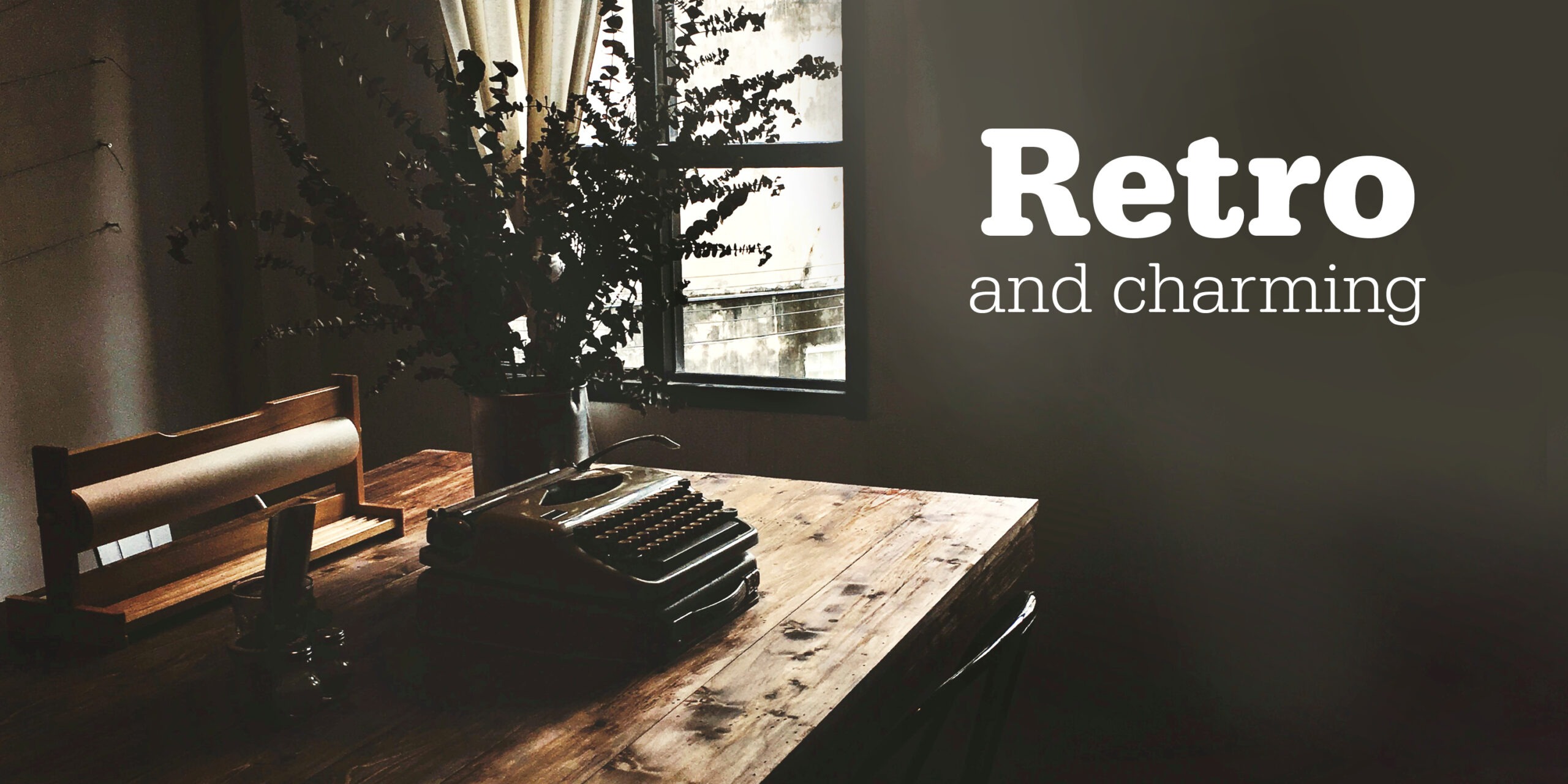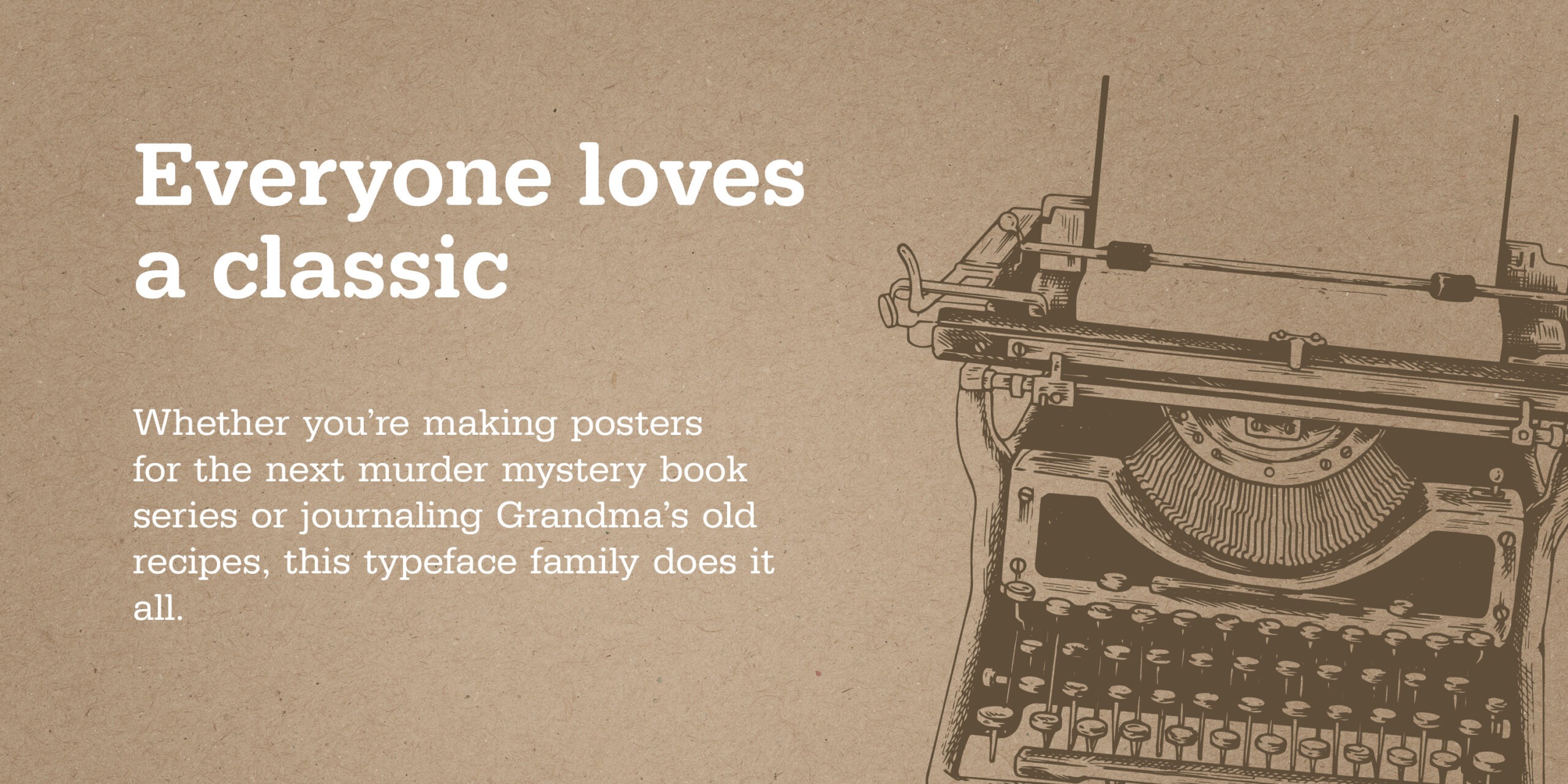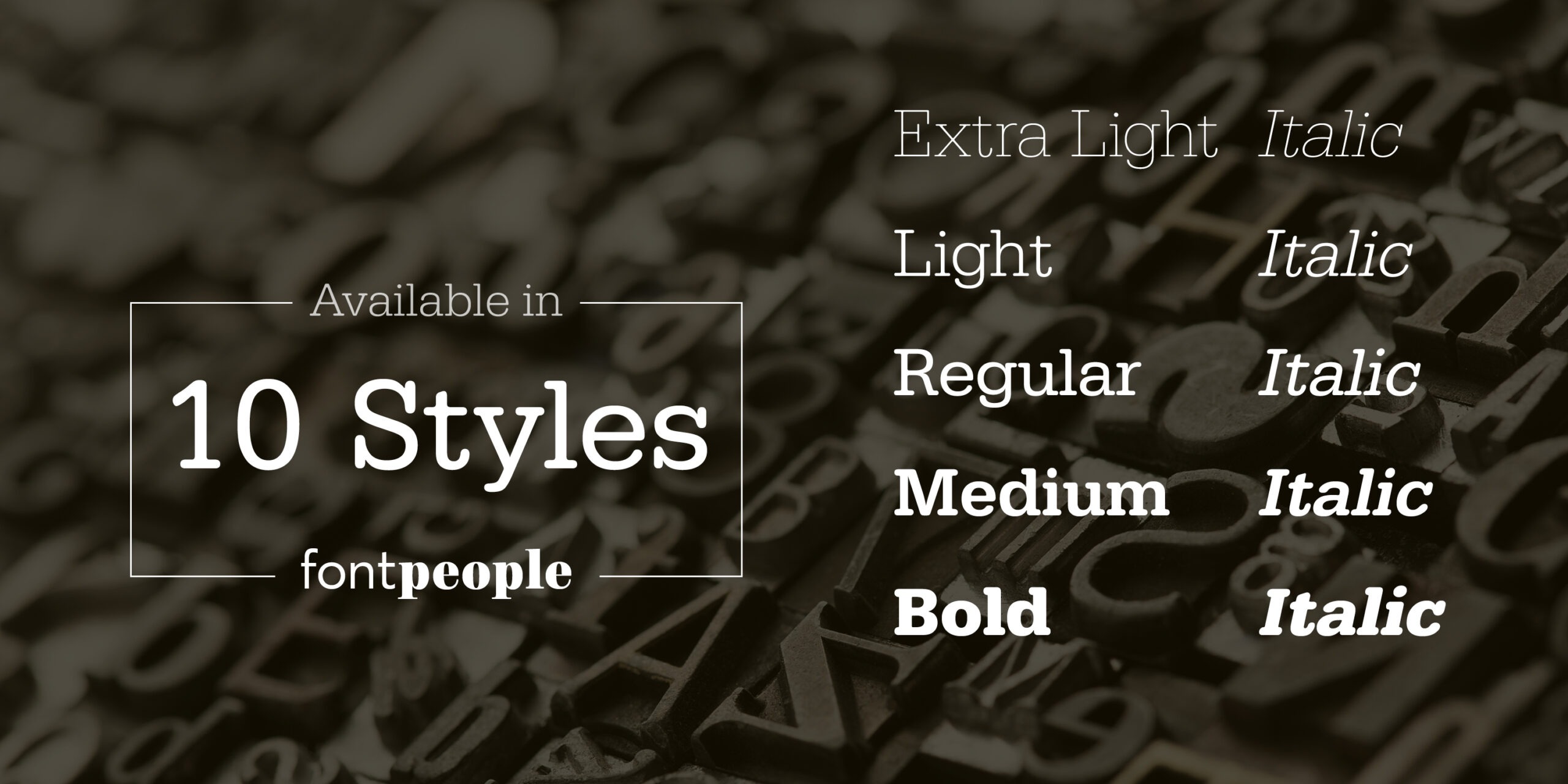
FP Typewriter Font Family
FP Typewriter Slab Serif Font
This is a retro slab serif font from designer FontPeople. With regular rounded stroke, fun character. To give you an extra creative work. This font is good for logo design, Social media, Movie Titles, Books Titles, a short text even a long text letter. Make a stunning work with FP Typewriter font.